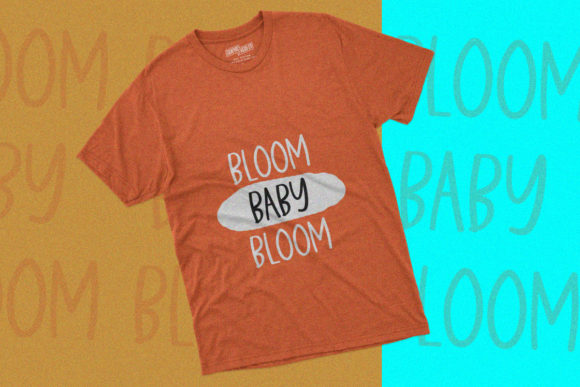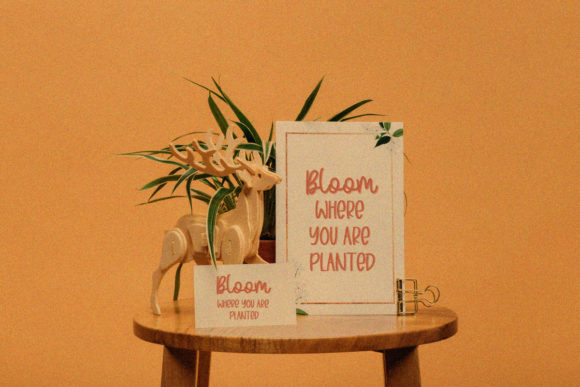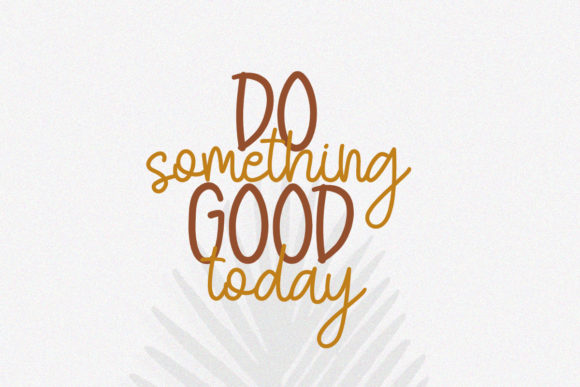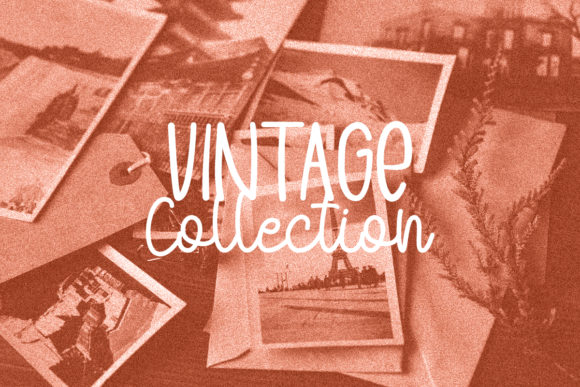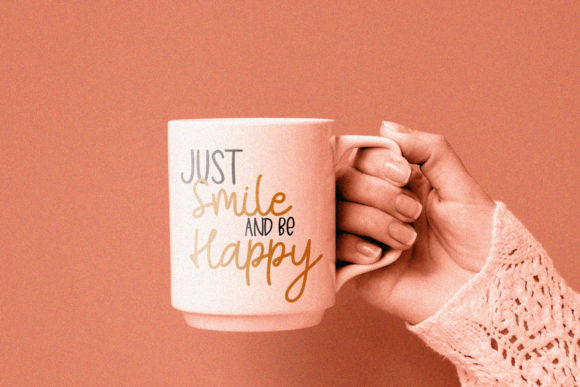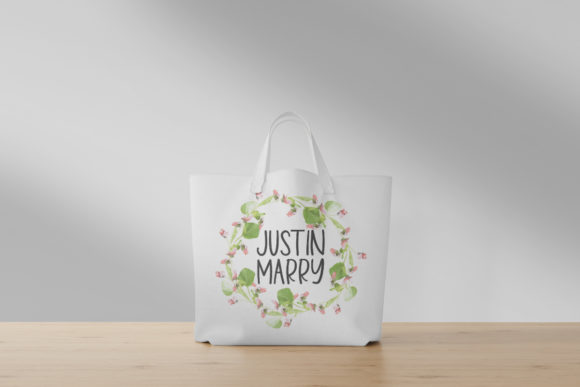
Introduction to Let the Sunshine Font
Let The Sunshine duo is a handwritten en script match made in heaven.
Combining these two fonts on your next design will give an amazing and enchanting feel .